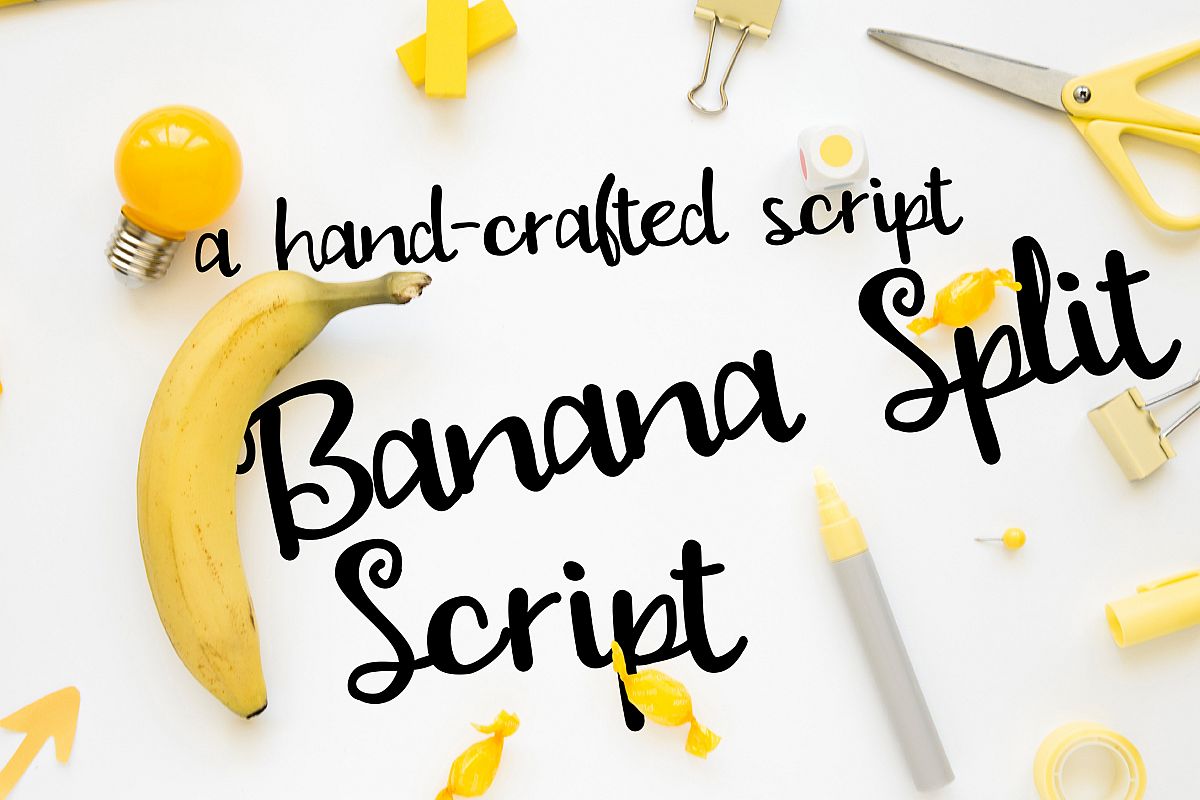
PN Banana Split Script
This cute hand-written cursive script has a fun and casual feel. Check out her sister font: PN Banana Split for a printed version.